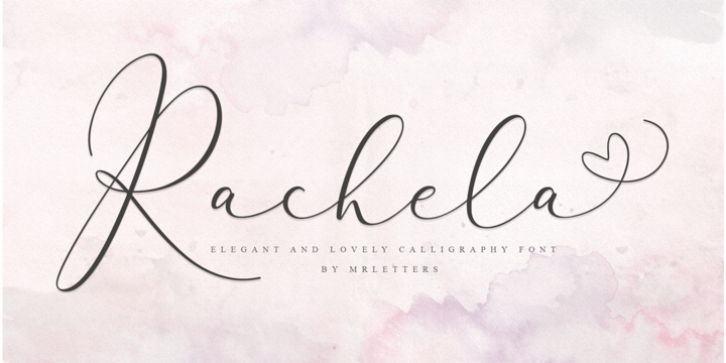
Publisher: MrLetters
Introducing:Rachela Lovely Calligraphy!
A new and beautiful font, created to meet your needs in creating a beautiful and elegant design, this font is special for you. Rachela Lovely Calligraphy Font is perfect for branding, wedding invitations, magazines, mugs, business cards, quotes, posters, and more you can use on your big project would be very beautiful.
This font has been equipped with OpenType features and has many glyphs. By having many of these glyphs will be able to choose the letters according to your liking, lots of variations and options for each letter, so you can customize your design choices and also have other languages ​supported.